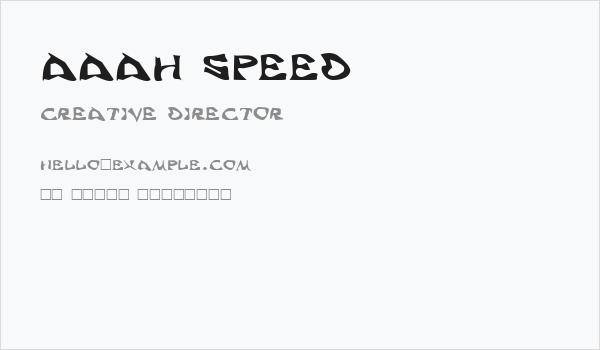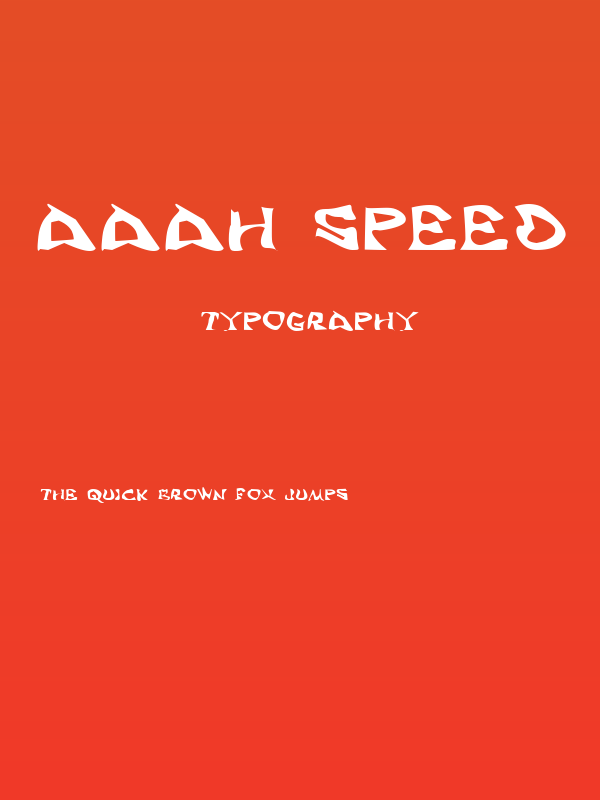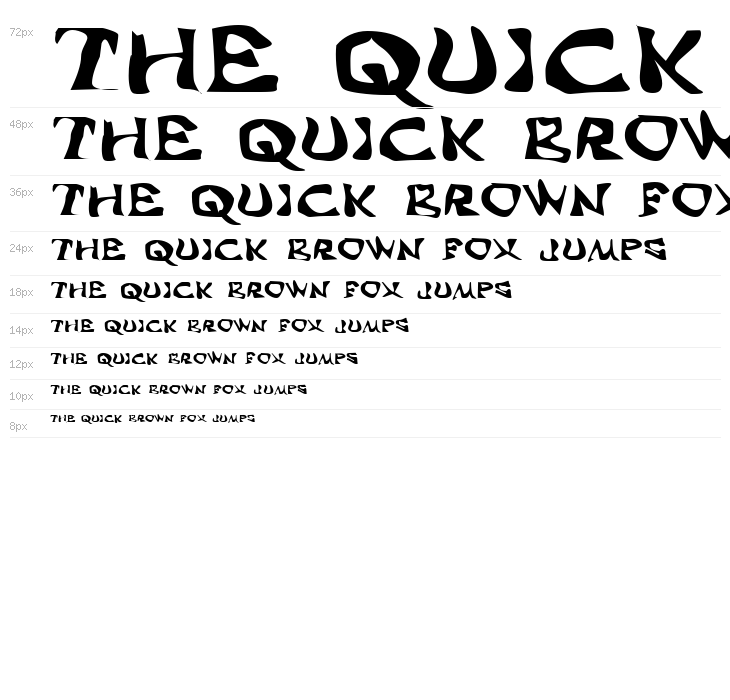
Aaah Speed Font
Aaah Speed Description
This font features a dynamic and energetic style, characterized by sharp, angular strokes and a sense of movement. The uppercase letters are bold and impactful, with a unique flair that suggests speed and agility. The design incorporates irregular edges and varying stroke widths, creating a sense of urgency and excitement. The lowercase letters maintain the same energetic style, ensuring consistency throughout the typeface. The numbers and special characters are designed to complement the letters, with similar angular and bold characteristics. This font is ideal for projects that require a sense of action and dynamism.
| Proposed Projects | Ideal for sports branding, action movie posters, and dynamic event flyers. |